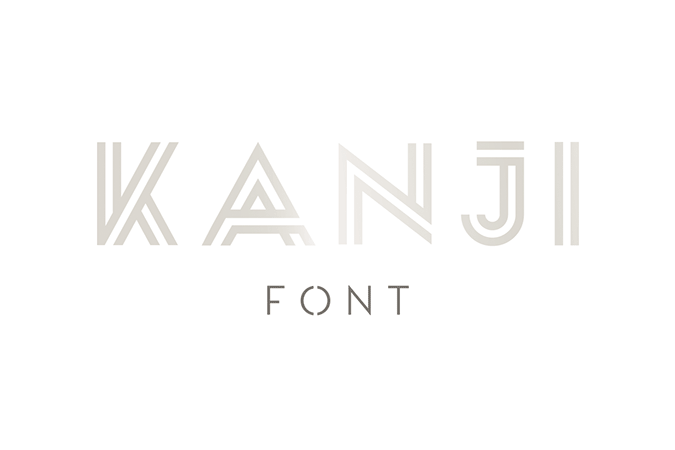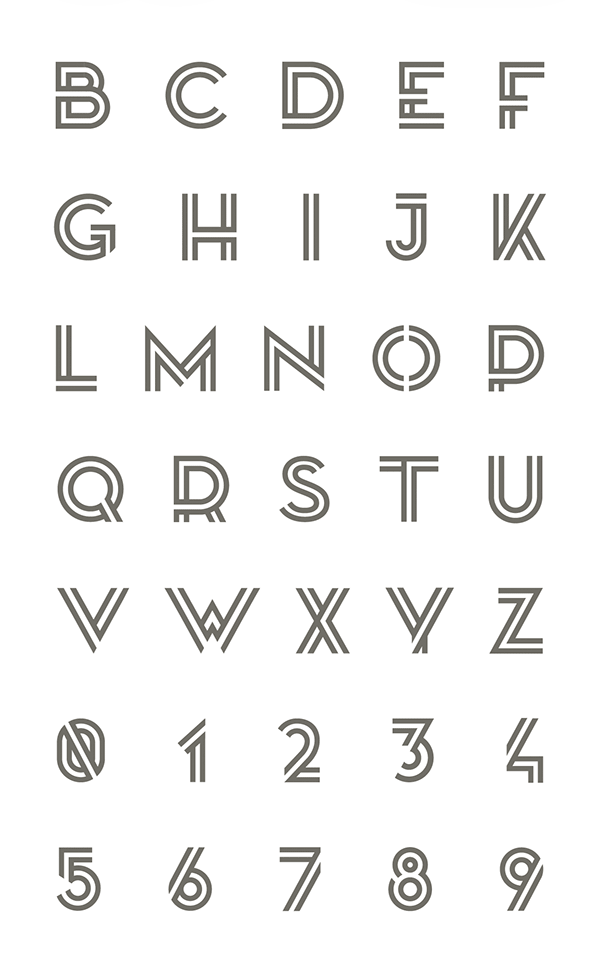
Kanji is a free to download display font that was inspired by the Japanese Kanji characters. According to the designer Pedro Azedo, he was fascinated by the kanji characters that are looking almost like a logo. Certainly the character designs of this font has the Japanese or the oriental feeling to it. You can use this font for both of your personal and commercial projects.
- Designer: Pedro Azedo